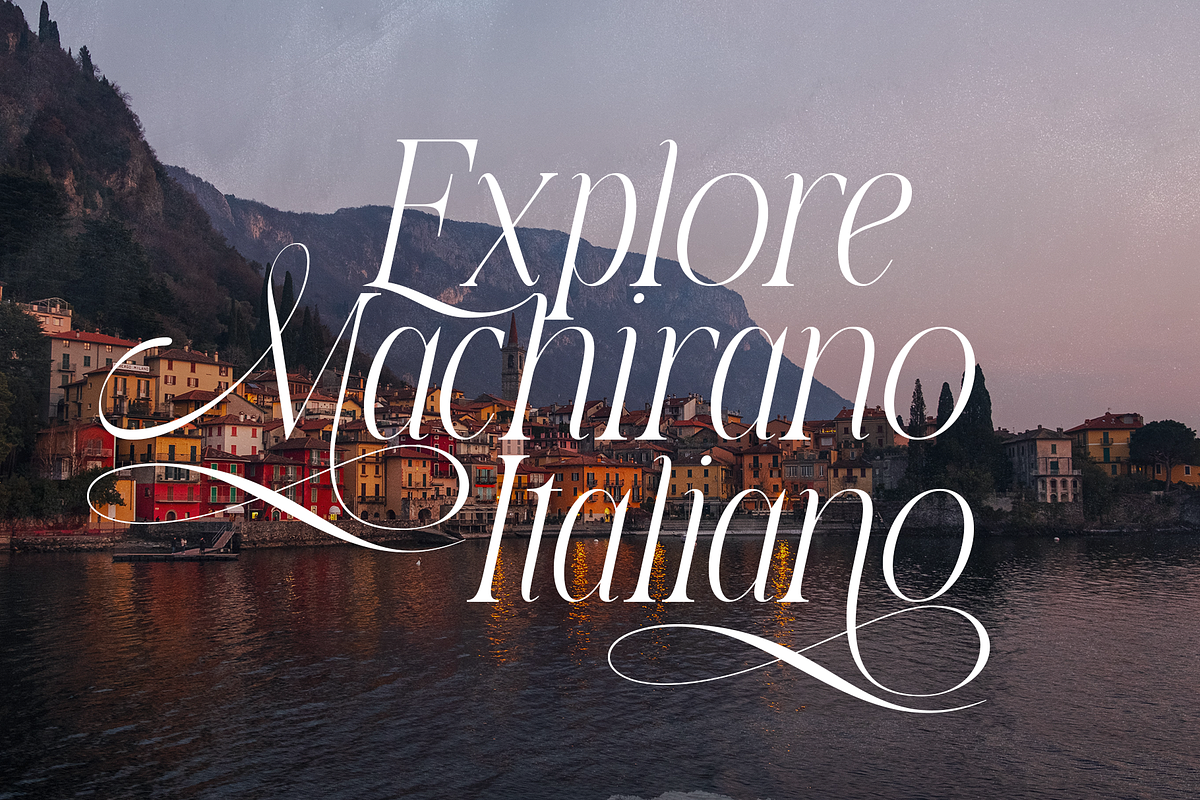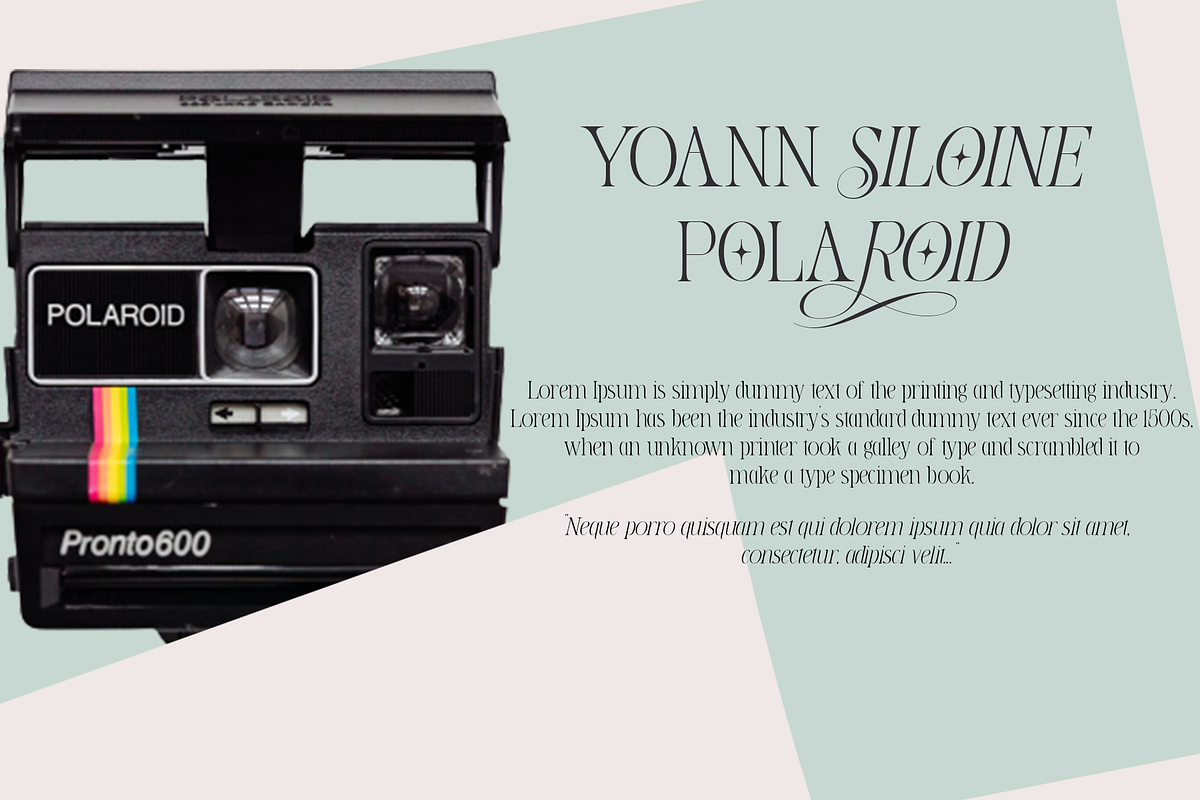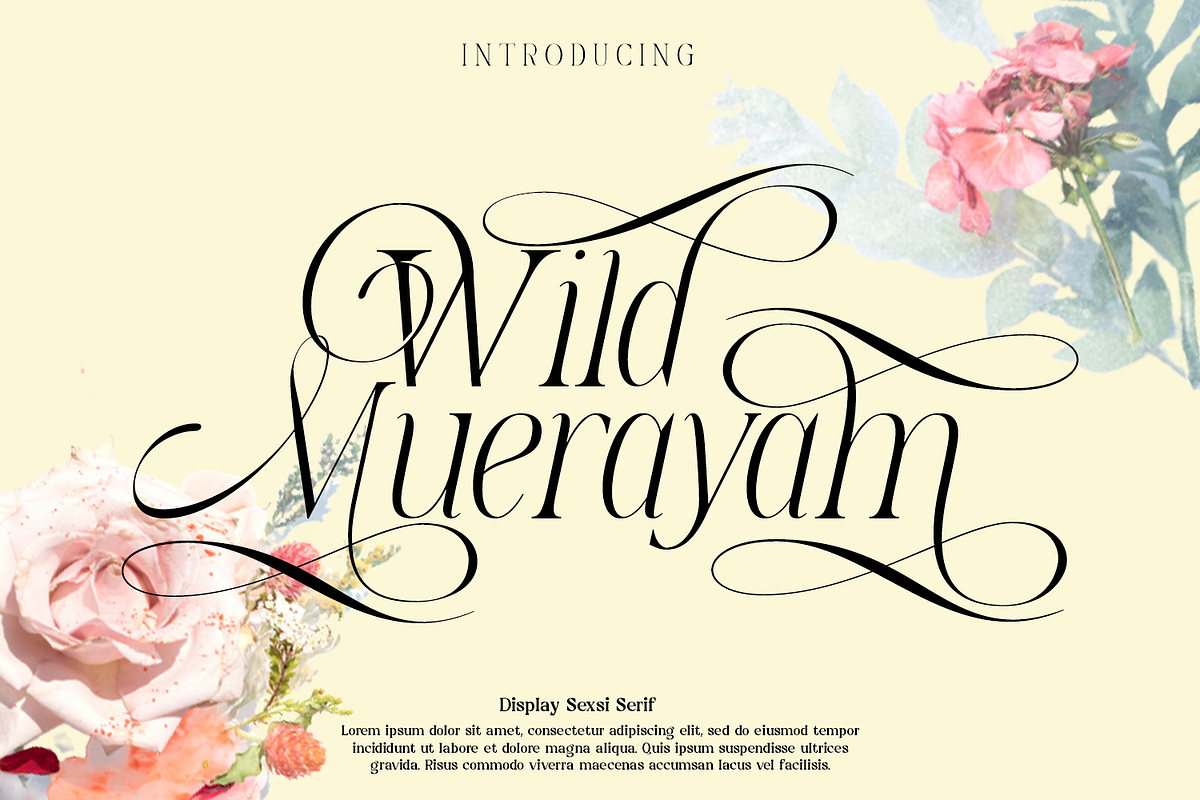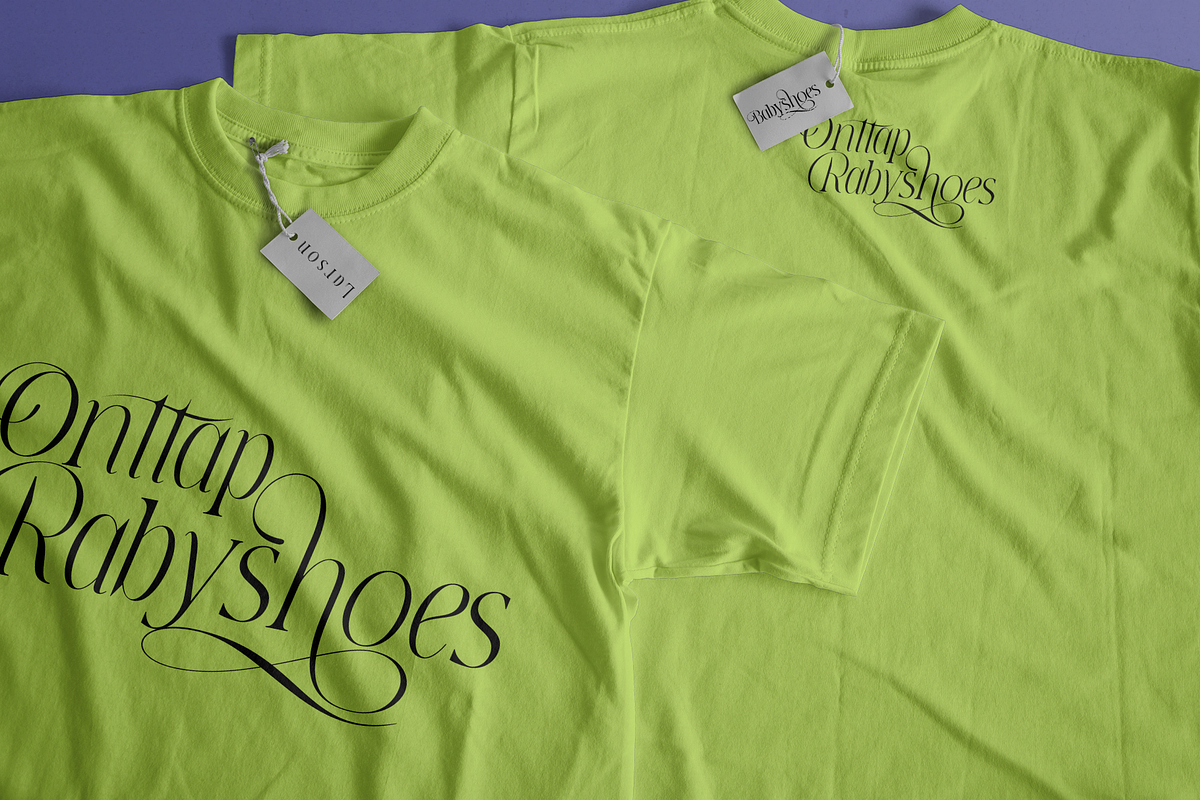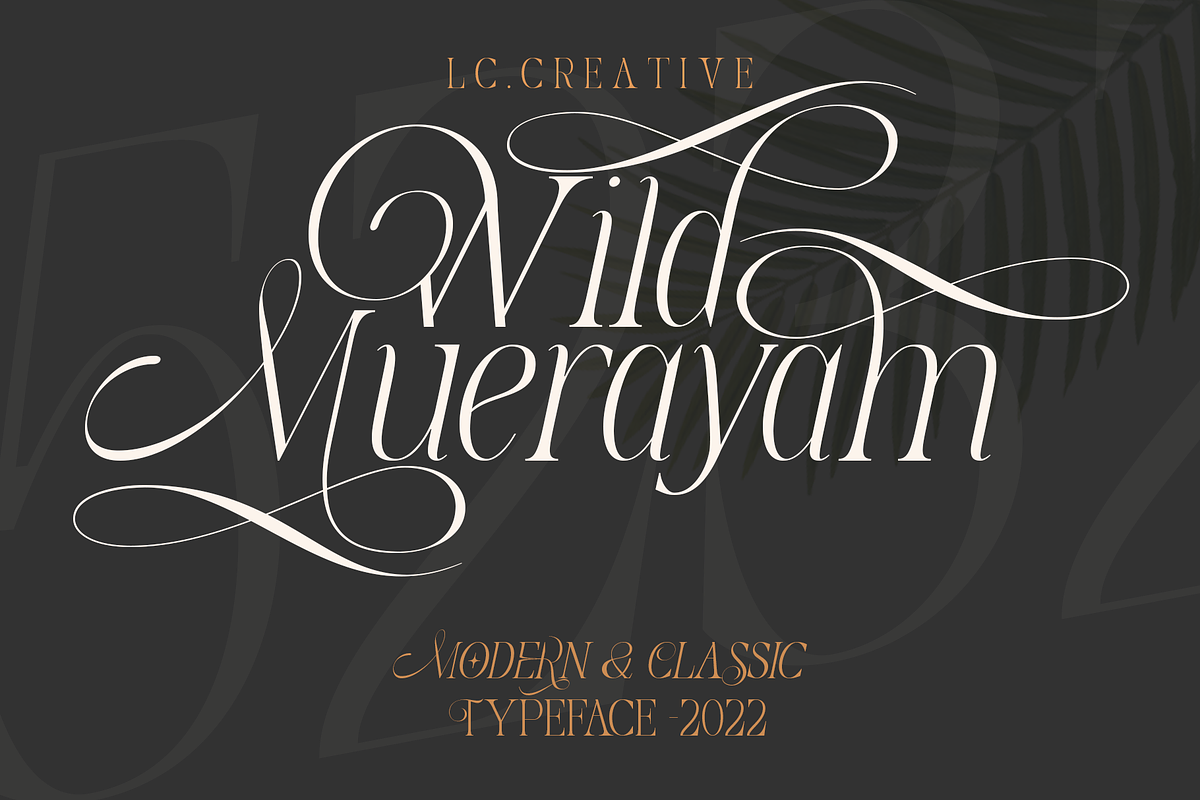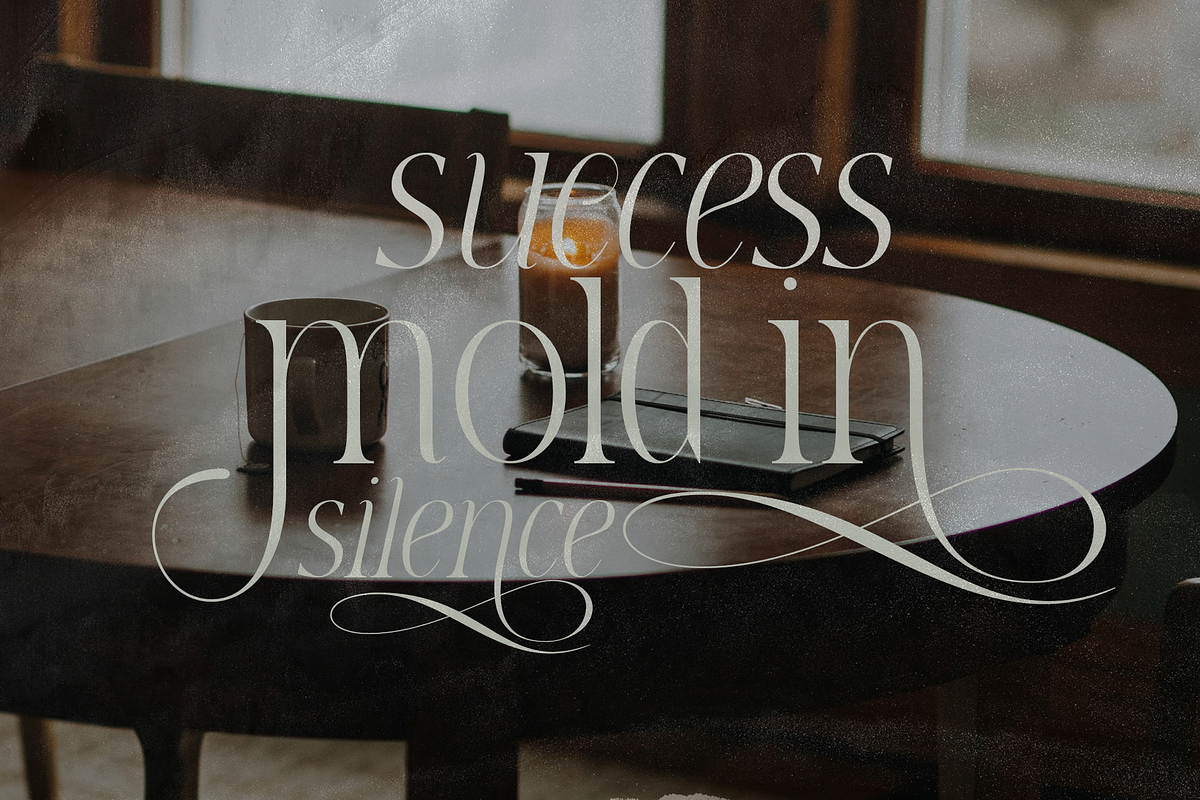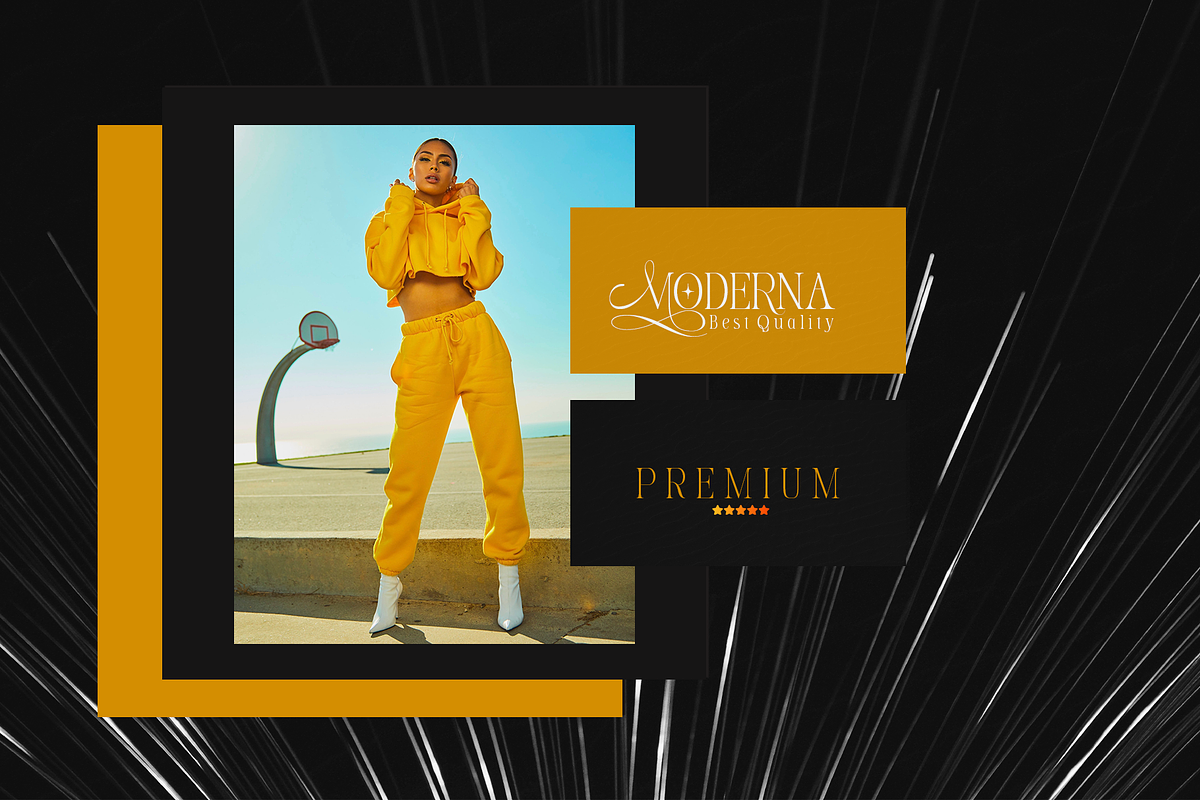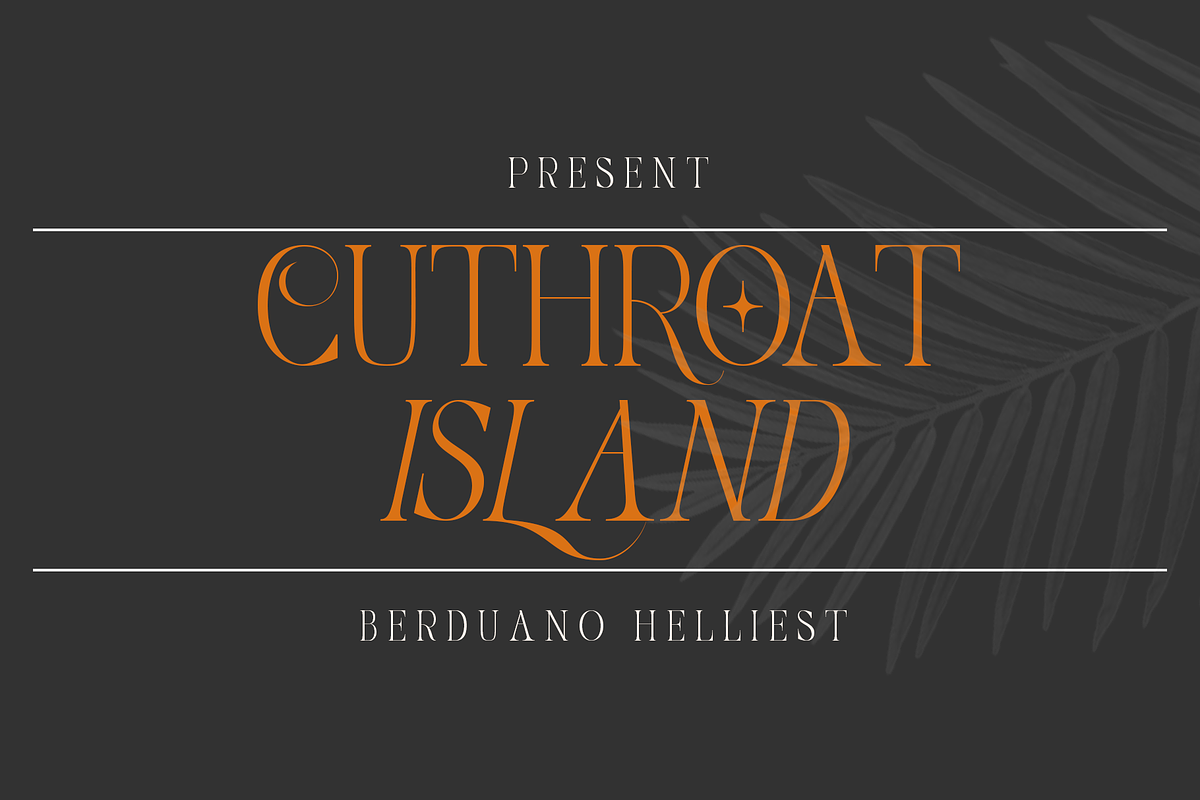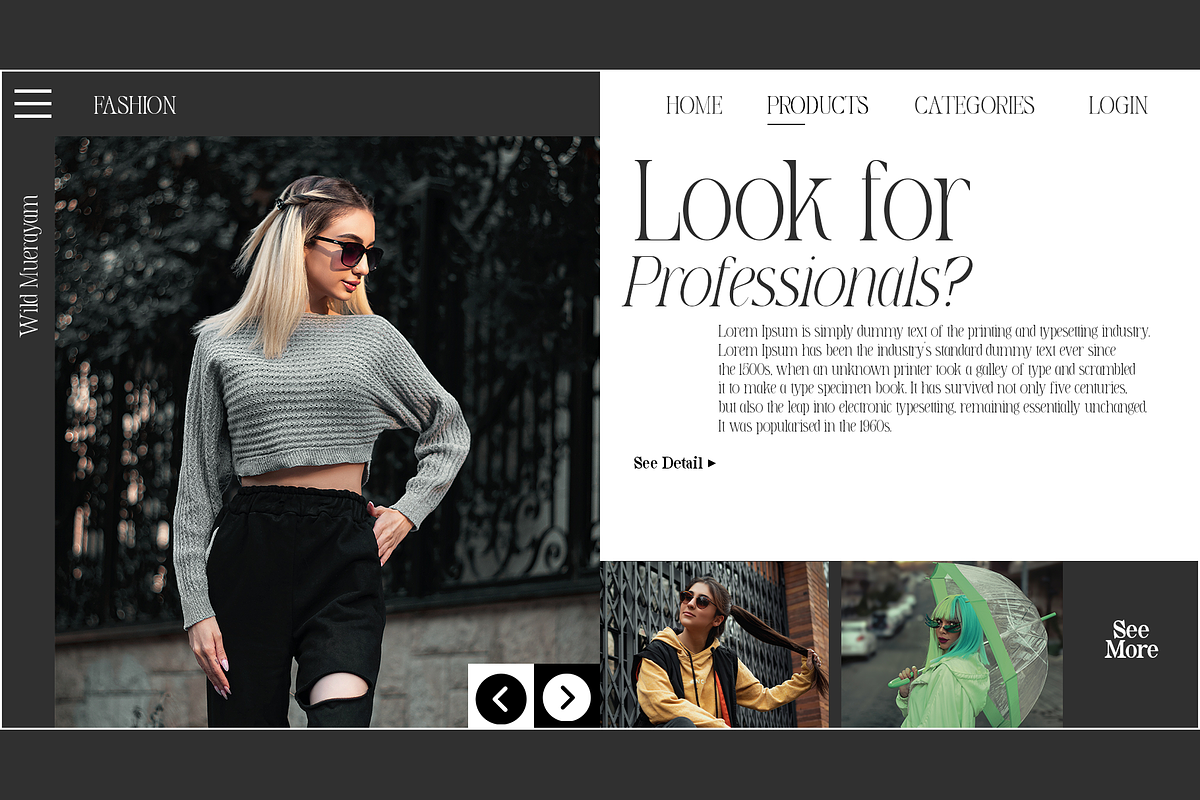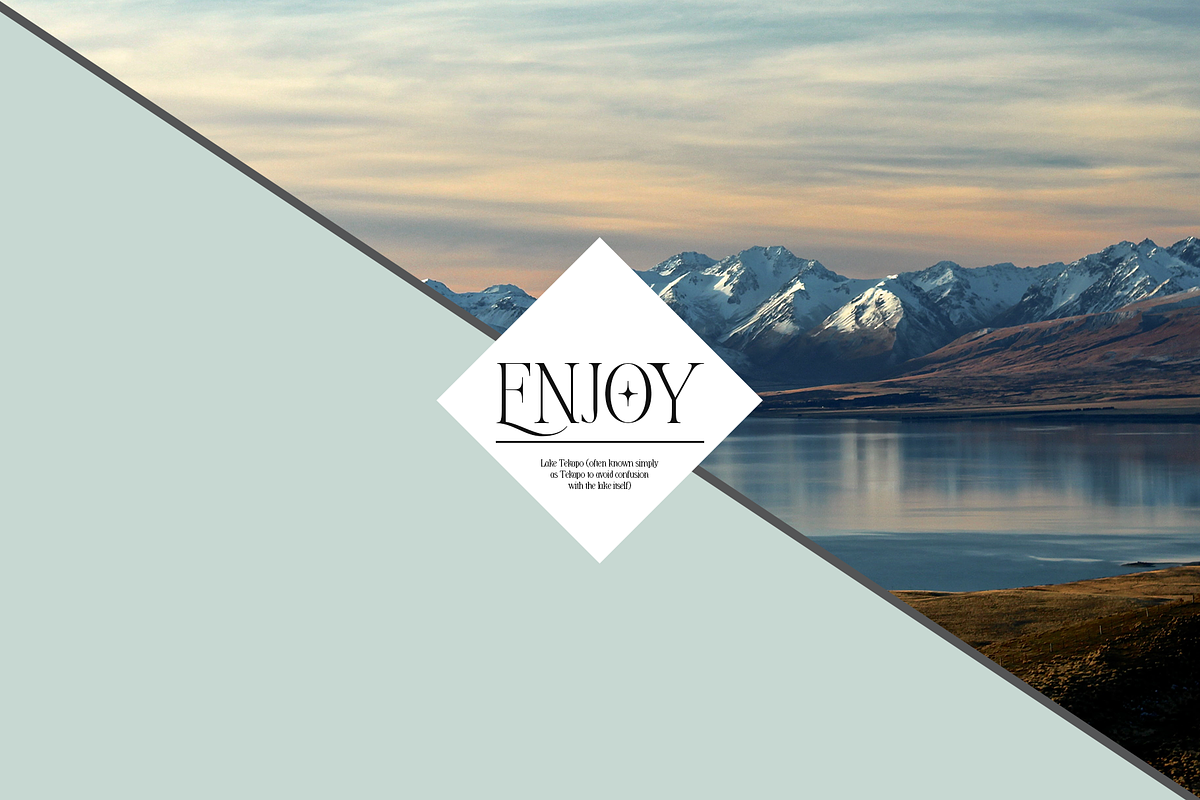
Wild Muerayam
Wild Muerayam is an elegant, modern and functional unique featuring a calm text and an expressive display. This font looks harmonious in books and other periodicals, on posters or on magazine covers. The scope is not limited to the printing industry, because Wild Muerayam looks aesthetically pleasing wherever text is used.
Wild Muerayam a serif display font with a modern yet luxurious style. Aesthetic and unique letterforms, as well as soft curves and wild shape of the letters make this font so iconic.